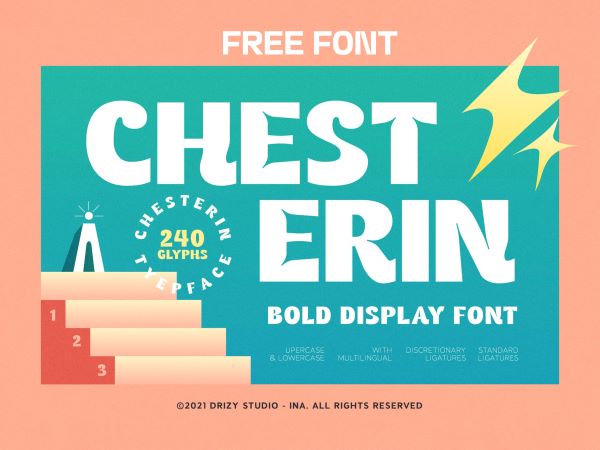
Chesterin Font
Chesterin by Drizy Font is a playful bold display typeface that brings an irresistible fun vintage retro energy to any project it touches. Its confident, rounded letterforms are constructed with the kind of visual warmth that evokes mid-century print culture — a period when type was bold, joyful, and unapologetically expressive. With uppercase and lowercase characters, multilingual support, ligatures, and punctuation all covered, it is as practical as it is personality-driven. It finds its natural home in retro branding, event posters, packaging, apparel, and any creative work that benefits from a typeface that refuses to take itself too seriously. A free demo version is available for personal use.